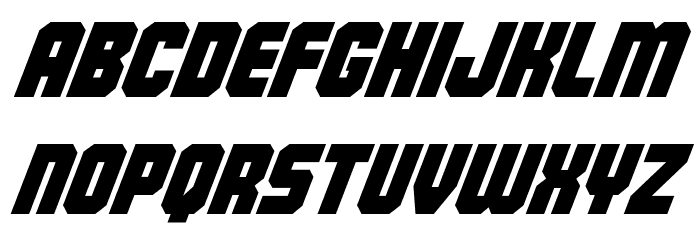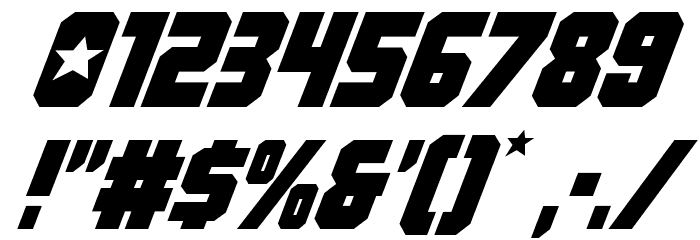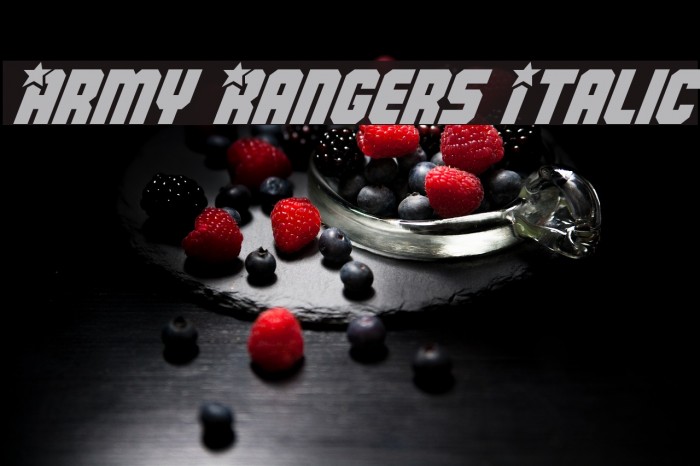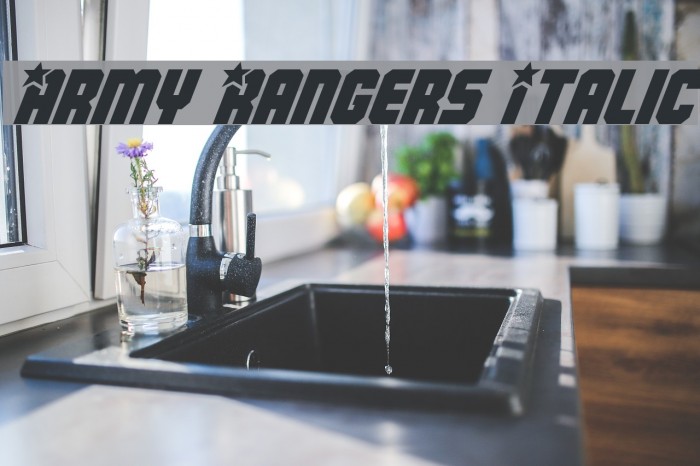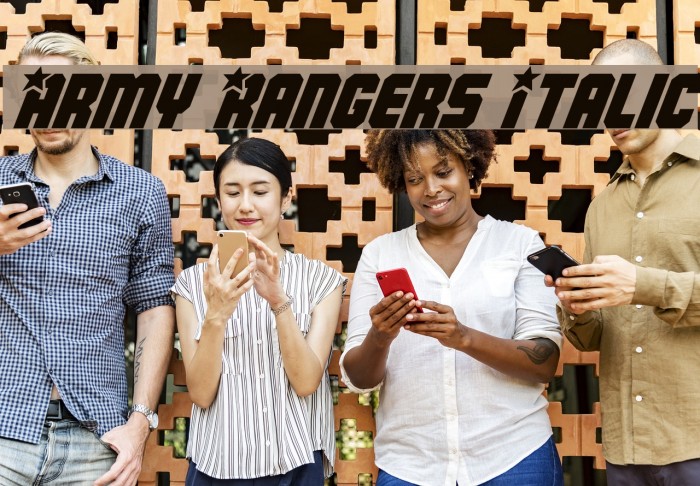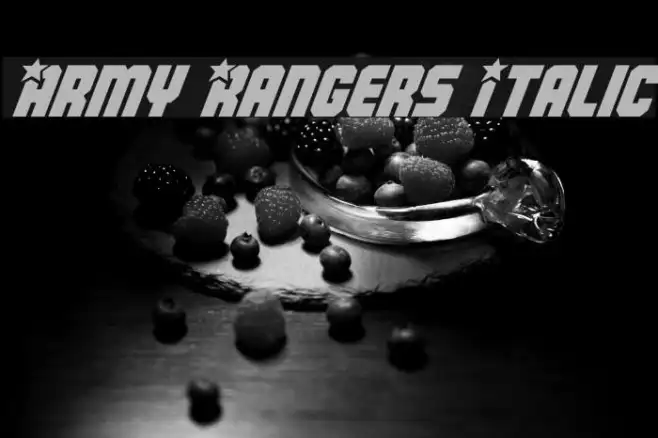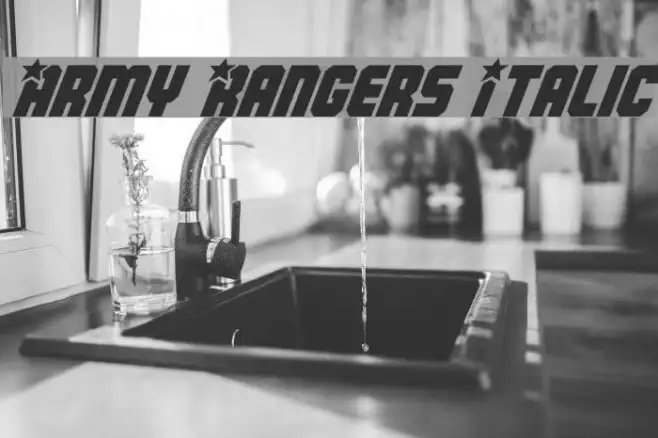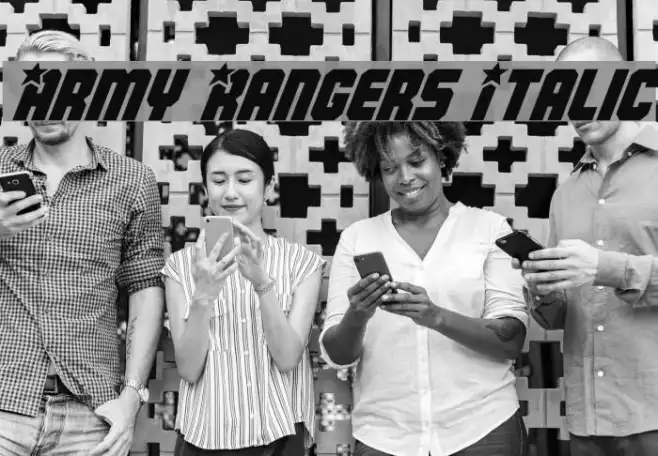
Army Rangers Italic Font
This bold and dynamic font features a strong, angular design with a military-inspired aesthetic. The uppercase letters are adorned with stars, adding a decorative touch that enhances its commanding presence. The italicized slant gives it a sense of motion and urgency, making it ideal for impactful designs. The numbers and special characters maintain the bold, geometric style, ensuring consistency across all elements. The font's thick strokes and sharp edges contribute to its high contrast, making it highly legible and attention-grabbing.
A bold, angular font with a military-inspired, star-adorned design.
- Proposed Projects: Ideal for military-themed posters, action movie titles, sports team branding, and patriotic event promotions.